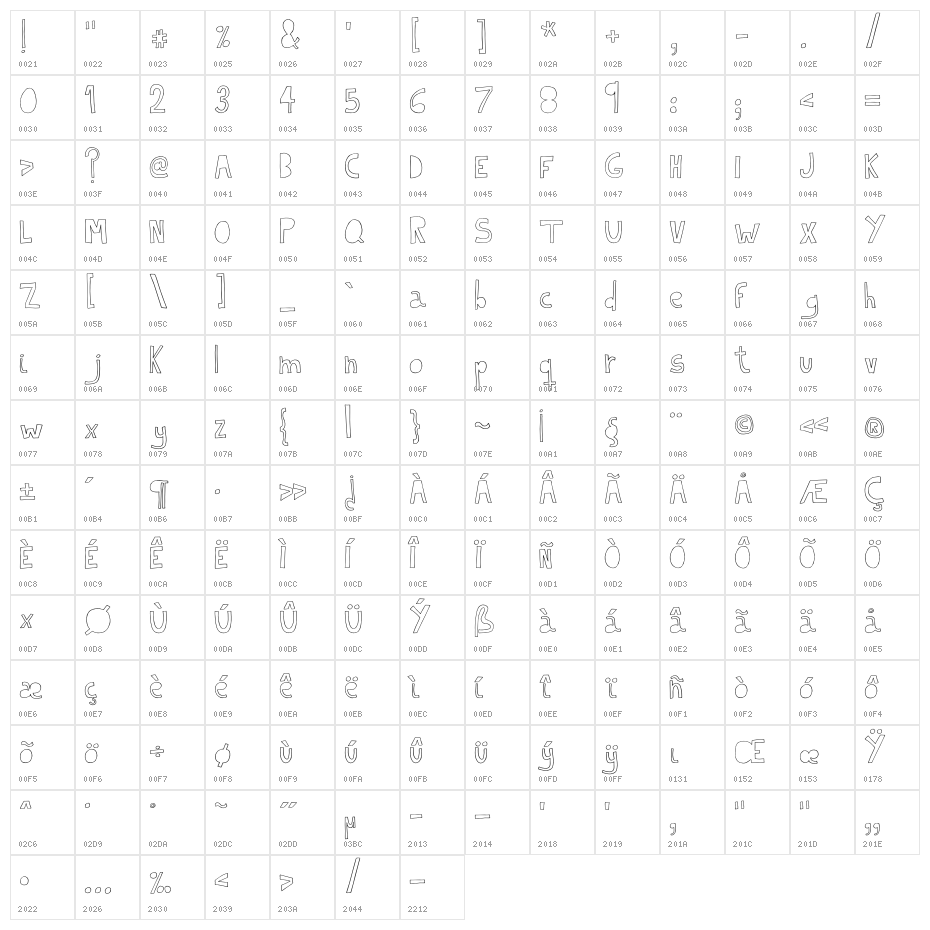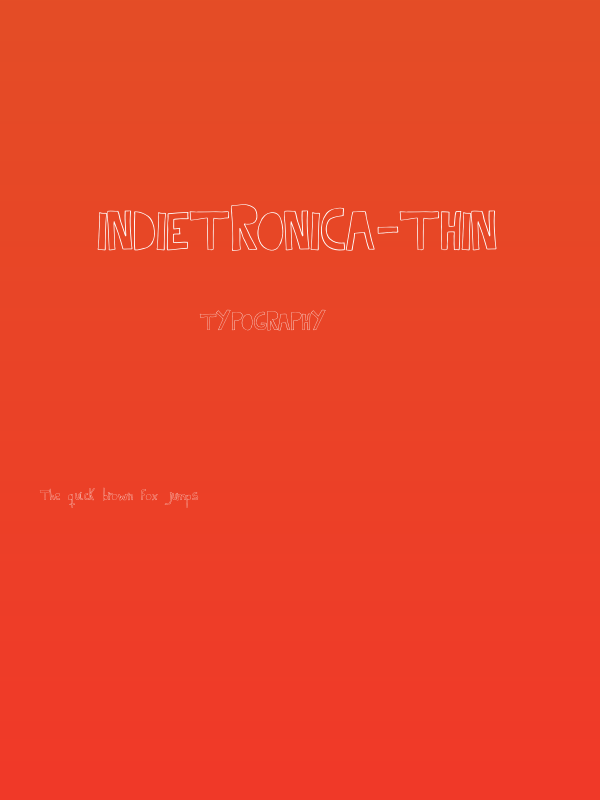
Indietronica-Thin Font
Indietronica-Thin Description
This playful and quirky font features a hand-drawn aesthetic with uneven strokes and a casual, informal style. The characters have a whimsical, almost doodle-like quality, with varying line thickness that adds to its charm. The uppercase letters are bold and slightly irregular, while the lowercase letters maintain a consistent yet relaxed form. Numbers and special characters follow the same playful theme, making this font ideal for creative and artistic projects. Its unique style is perfect for capturing attention and conveying a sense of fun and creativity.
| Proposed Projects | Ideal for children's books, creative posters, casual branding, and artistic invitations. |